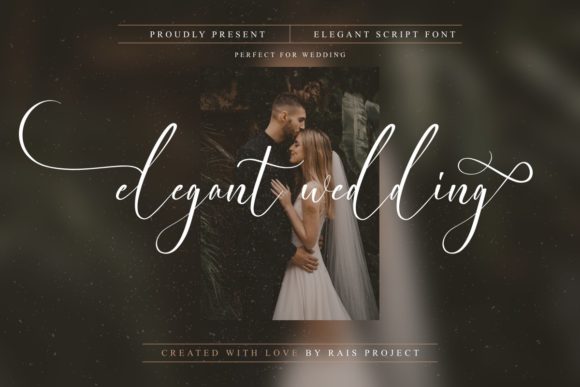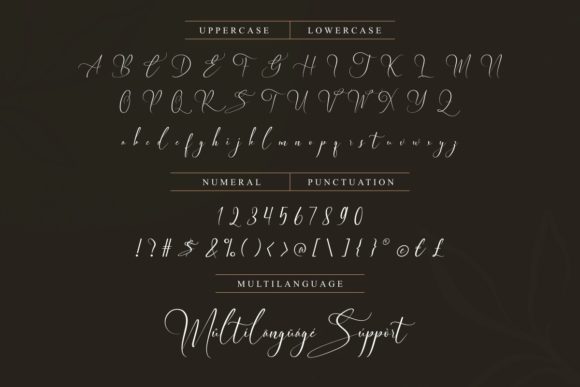
Elegant Wedding Font
Elegant Wedding is a delicate and fashionable script font. It is perfect for any branding project, such as logos, t-shirt printing, creative products, and more. This font is PUA encoded, which means you can access all of the glyphs and swashes with ease!